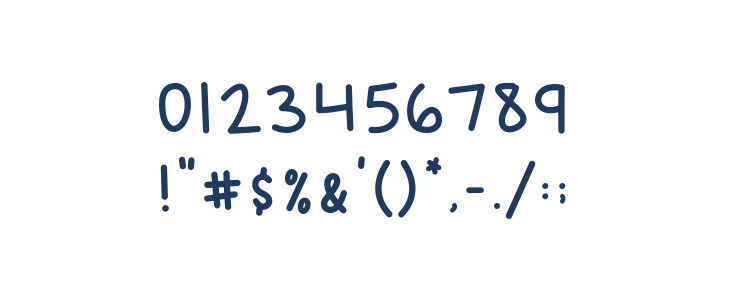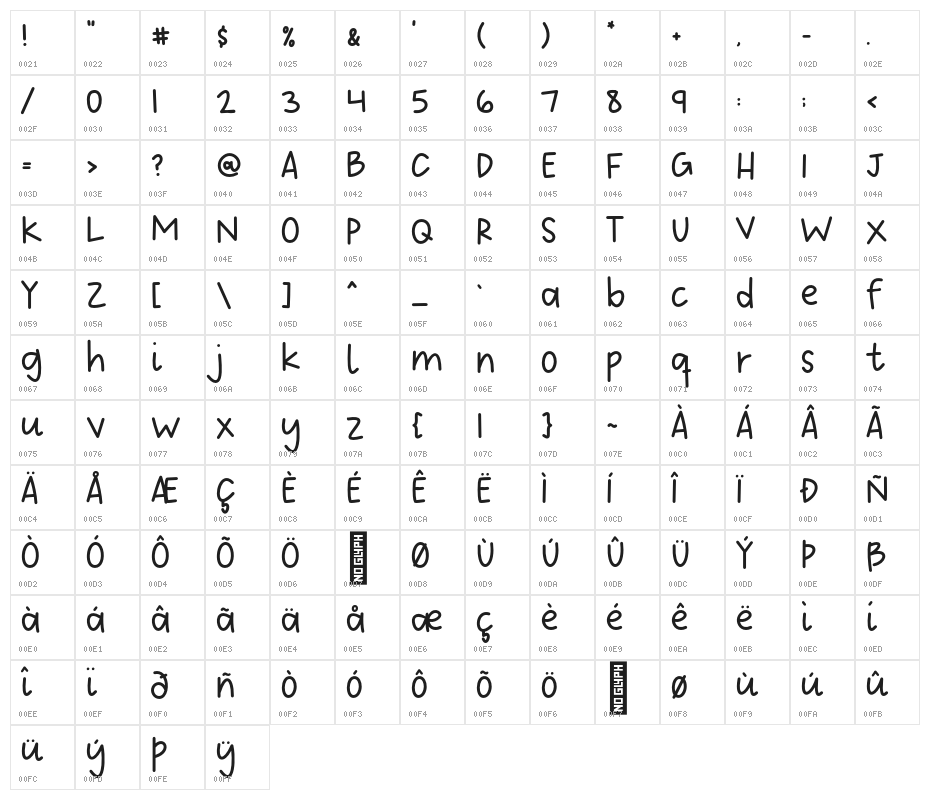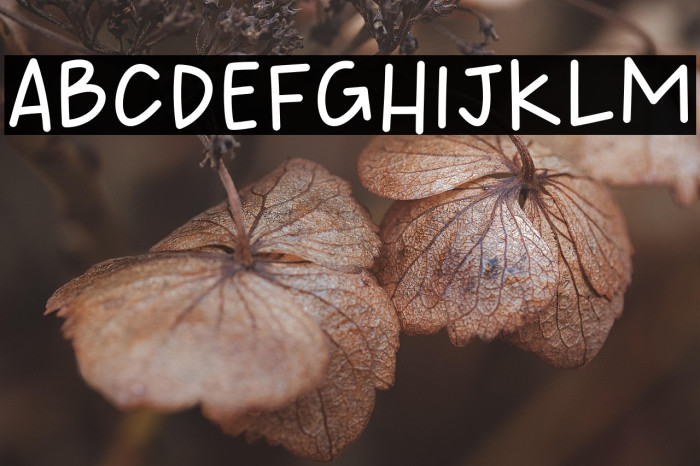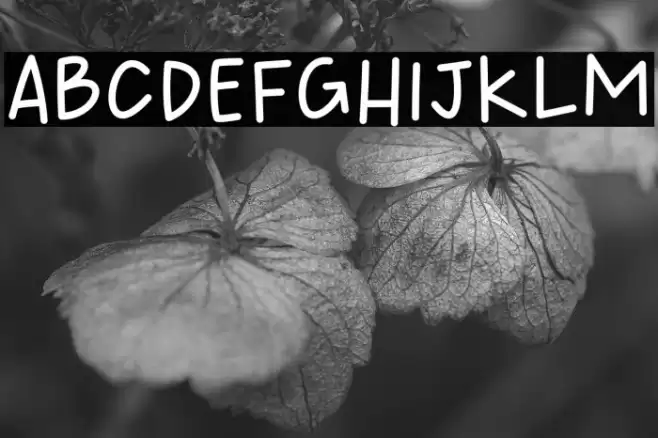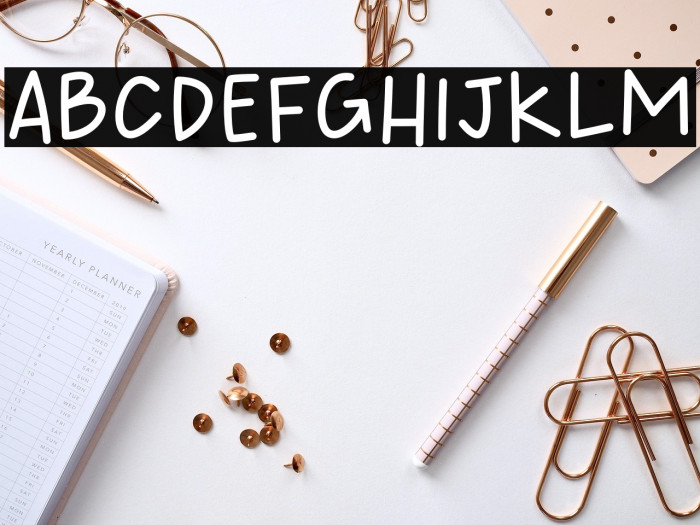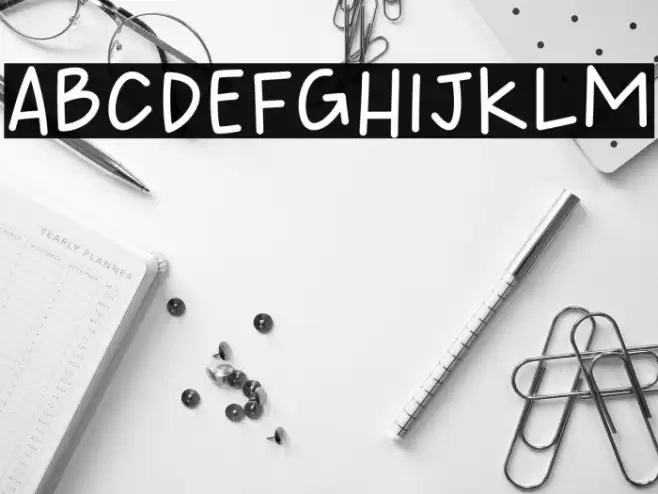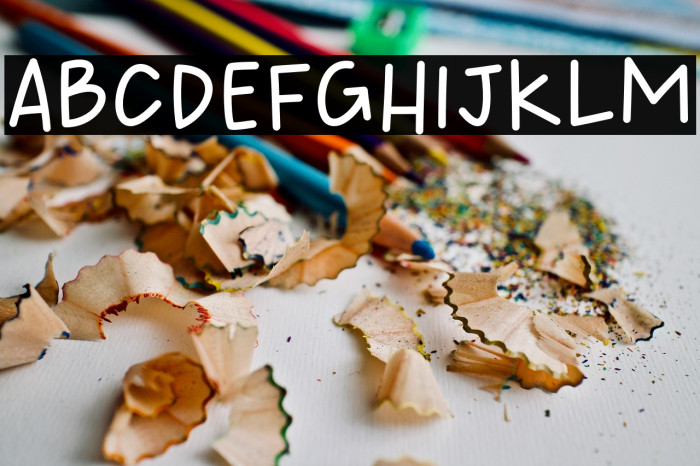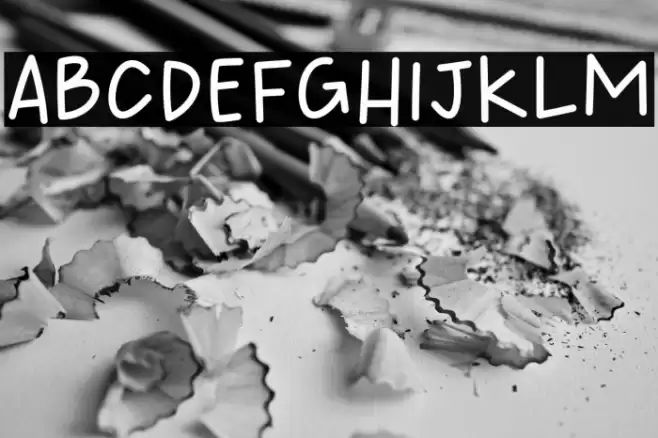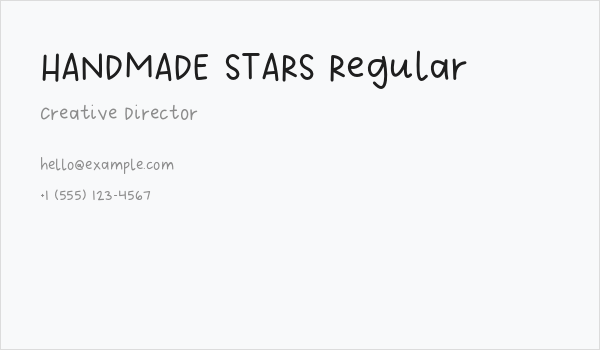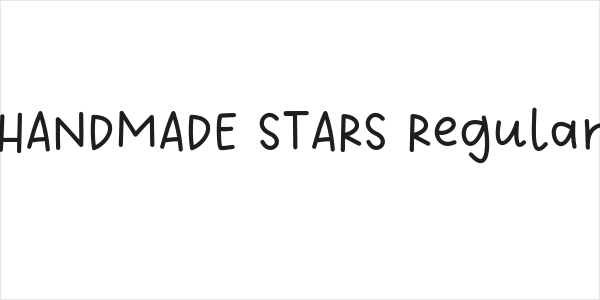
HANDMADE STARS Regular Font
HANDMADE STARS Regular Description
This font exudes a playful and casual vibe, characterized by its hand-drawn appearance. The letters are slightly irregular, adding to its charm and authenticity. The strokes are consistent in width, giving it a uniform look despite its informal style. The rounded edges and smooth curves contribute to its friendly and approachable feel. It's perfect for projects that require a personal touch or a whimsical aesthetic. The font maintains good legibility, making it suitable for both headlines and short body text. Its unique style can add a creative flair to any design.